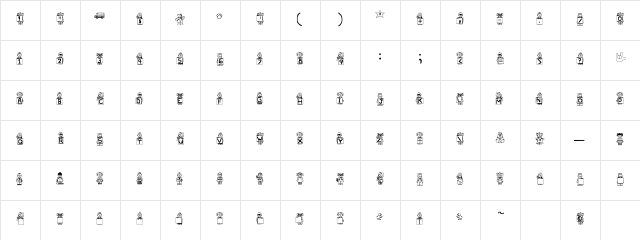
Rainie's Kids Regular
Design Context for Rainie's Kids Typeface
Rainie's Kids has an approachable, lighthearted character — its loose, expressive forms are well-suited to children's content, casual branding, and fun-first design.
Font Pairing: Pairs well with a rounded or humanist sans for body copy, maintaining the friendly tone without relying on Rainie's Kids to carry extended reading.
Pro Tip: Use Rainie's Kids at larger display sizes where its expressive character can land. Pair with a clean, simple sans for body copy to maintain readability.